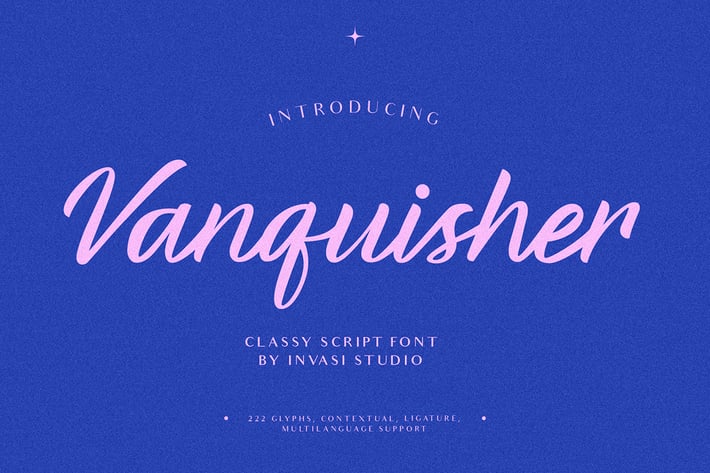
Vanquisher - Classic Script Font
Vanquisher is a beautiful, elegant classic calligraphy script. Using swashes in uppercase and contextual alternatives, Vanquisher font combines a bold and elegant stroke line. Multi-language support is also included in the font. This font is perfect for your design needs such as branding, logo design, wedding invitations, decorations, and more.
- Total 222 Glyph
- Uppercase & Lowercase
- Ligatures & Alternative Character
- Multilanguage Supports 60+ Latin-based languages